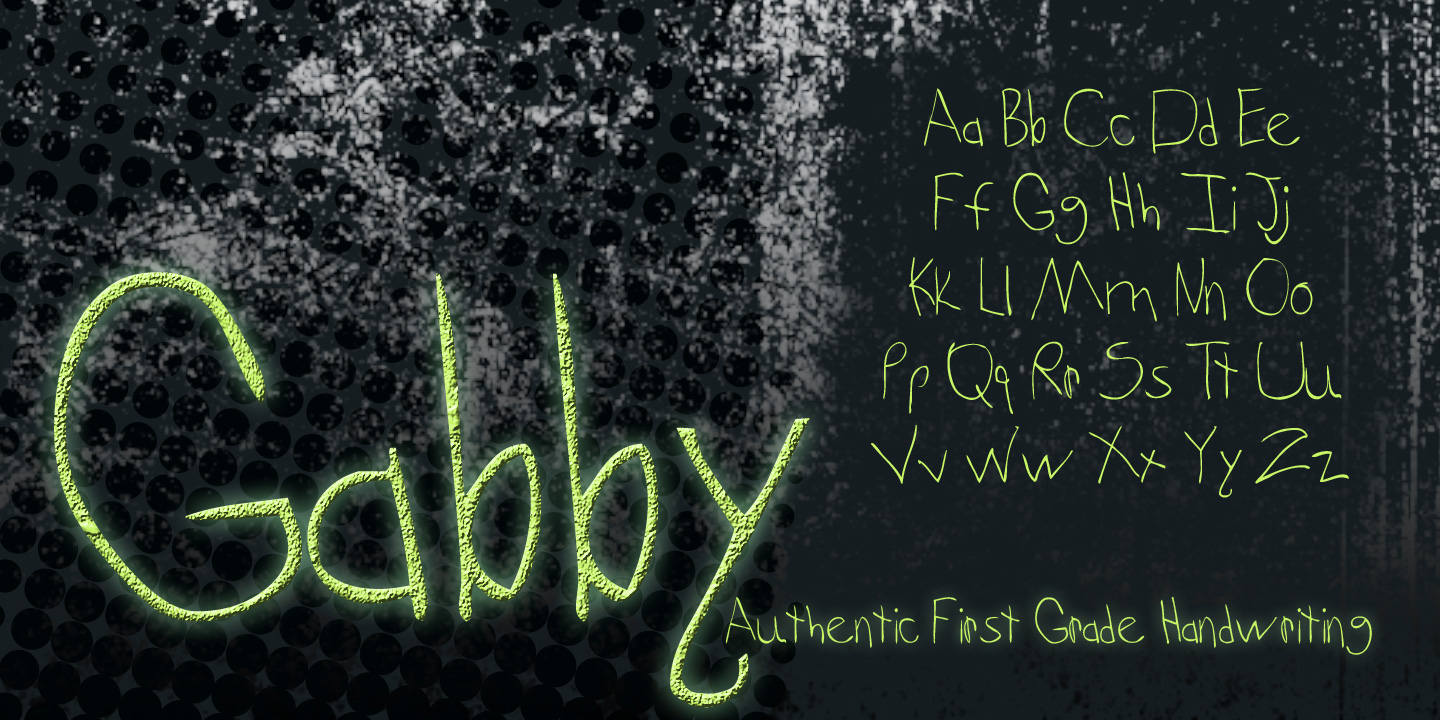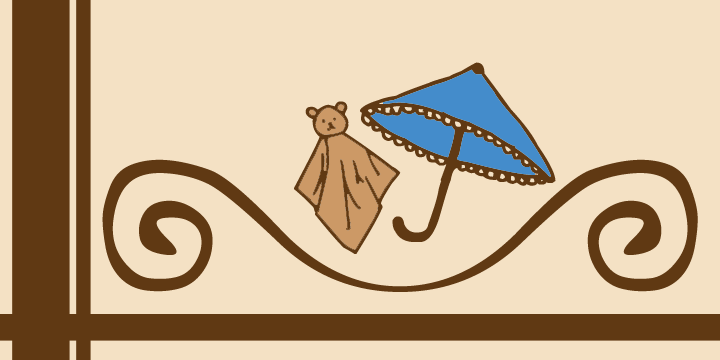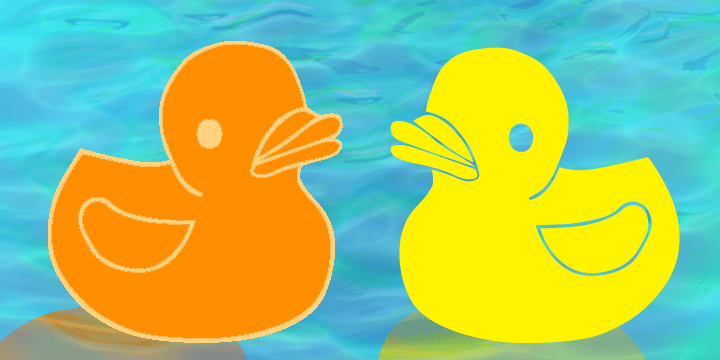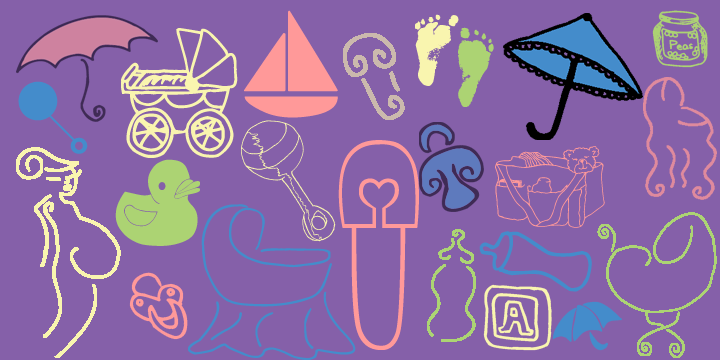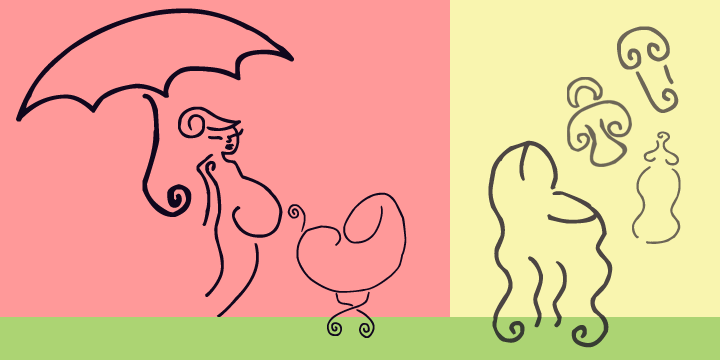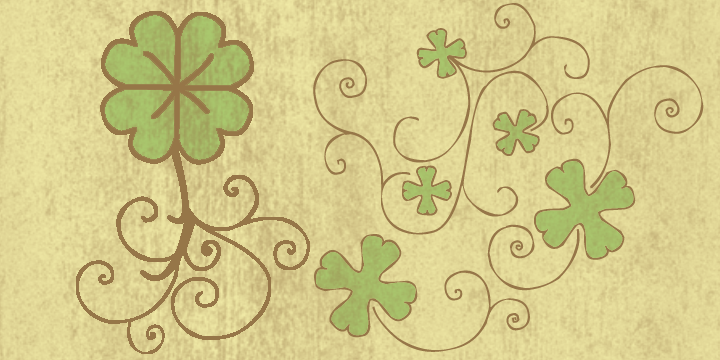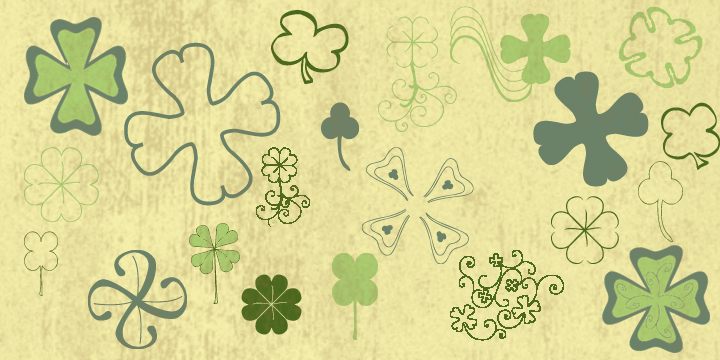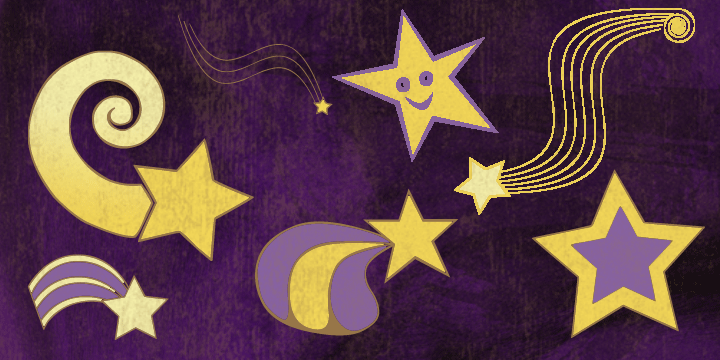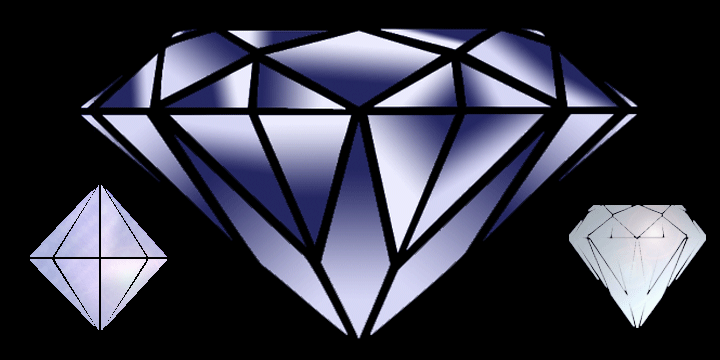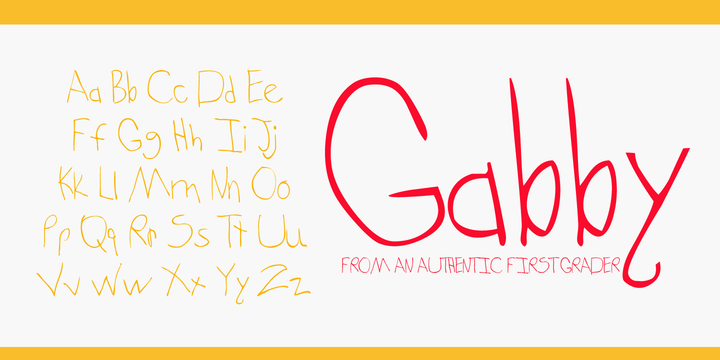
Bellafonts is a one woman show of a stay-at-home mom whose fed up with only doing blah housework and being turned down for jobs because she has kids, so she has taken the matter into her own hands and decided to start creating stuff online. The name Bellafonts is a play on word of Elephant/font and my daughter’s name, Annabelle. I already named the main business for tax purposes from the other two offspring before Annabelle was born, so this is my attempt to make it fair.
I'm not sure exactly how I started in typography, and I still consider myself a beginner. I am really enjoying learning more about letters and design from all the fabulous guru’s who are so kind to post articles and youtube videos on the subject. They actually have a term to describe every line on a letter. I not only never realized that was possible, but I never realized anyone would do such a thing. Regardless, I'm going to slowly make fonts available as I create them, and I still have quite a few dingbat projects in the works before I really move on to letters.
The cool thing about dingbat fonts is that you can use them for a variety of purposes. Many of your design software that has user friendly “word art” makes it easier to play with fonts than an image, so having an image as a font lets you do more with an image to make it more your design. You can also add colors with a paint bucket tool, customizing it to the overall feel of your main design, and Bellafonts' license is designed so you can use these dingbats to design logo’s and items for re-sale (like t-shirts). If you have Adobe Photoshop and prefer to work with brushes, all you have to do is create a new document, type the design you want to make a brush, crop it down, go to edit, choose “define brush preset,” and then name it.